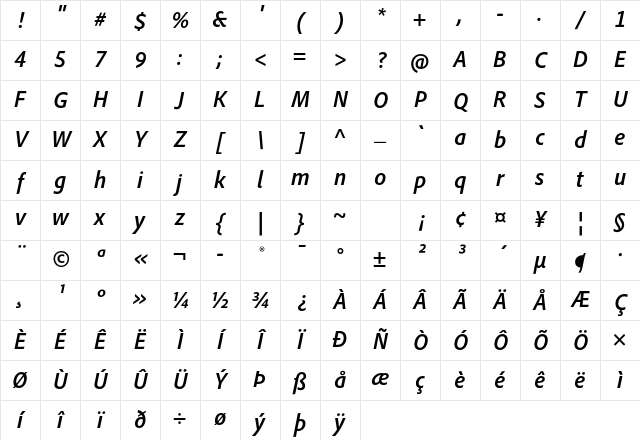
Complete Adobe Clean SemiCondensed Bold Italic glyph index. Displaying only characters natively supported by Adobe Clean SemiCondensed Bold Italic font.
Adobe Clean SemiCondensed is a composed and adaptable typeface that performs quietly and consistently across a wide range of design contexts. The slanted form adds forward momentum and visual energy. Its bold stroke weight gives it real presence on the page. Its narrow stance lets it pack a punch even in space-constrained designs.
Pro Tip: Use Adobe Clean SemiCondensed for emphasis, pull quotes, and subheadings where its slanted energy can add rhythm to the layout.